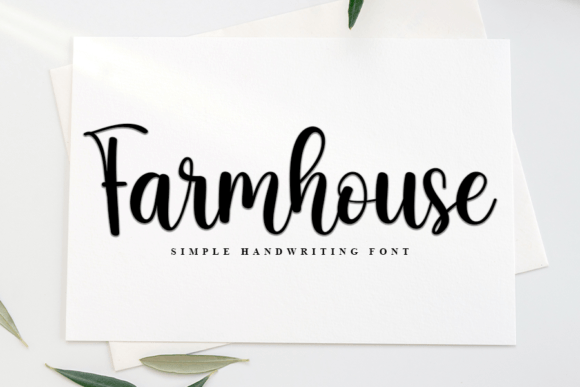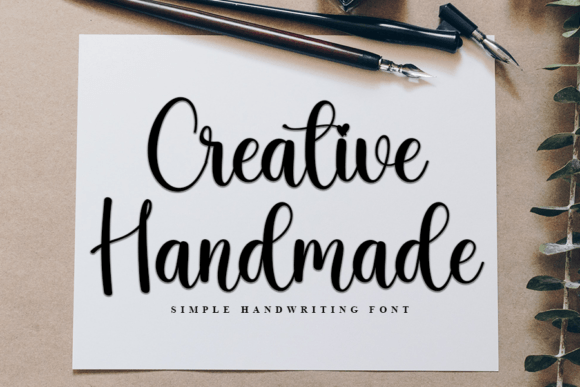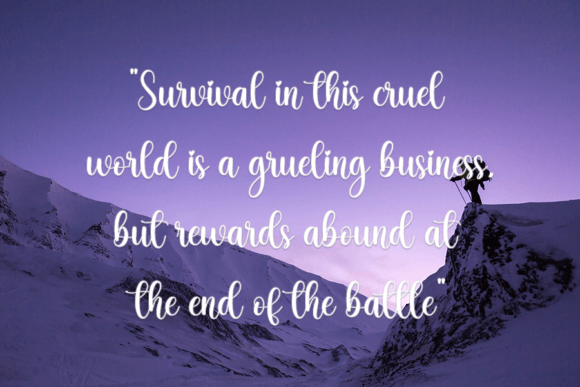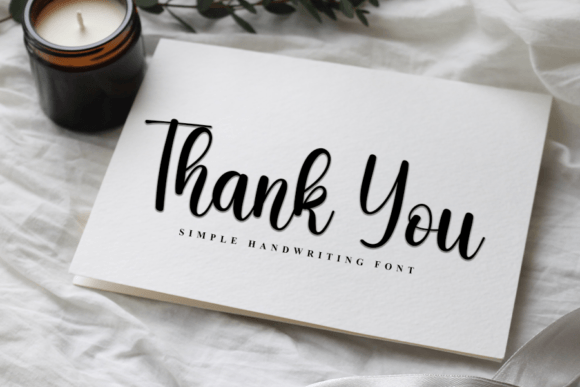
Hello Farmhouse Font: Elevate Your Designs with a Delicate Handwritten Touch
In the world of digital design, fonts play a crucial role in conveying the tone and aesthetic of a brand or project. For those seeking a unique and cool design element, the Hello Farmhouse Font is an excellent choice. This delicate handwritten font is carefully crafted to add a touch of personality to various design applications, from letters and invitations to food products and titles.
What is Hello Farmhouse Font?
Hello Farmhouse is a beautifully designed handwritten font that exudes a sense of elegance and simplicity. Its delicate strokes and unique letterforms make it an ideal choice for designers and crafters looking to add a personal touch to their work. The font’s rustic charm and whimsical feel evoke a sense of nostalgia, making it perfect for projects that require a vintage or farmhouse-inspired aesthetic.
Key Features of Hello Farmhouse Font
- Delicate Handwritten Style: Hello Farmhouse boasts a beautiful, handwritten design that adds a touch of warmth and personality to any project.
- Unique Letterforms: The font features unique and distinctive letterforms that set it apart from more traditional fonts.
- Versatile: Hello Farmhouse can be used for a wide range of design applications, from letters and invitations to food products, titles, and more.
- Easily Readable: Despite its delicate nature, the font remains easily readable, making it suitable for both digital and print designs.
Use Cases for Hello Farmhouse Font
The versatility of Hello Farmhouse Font makes it an excellent choice for various design projects. Here are some use cases where this font truly shines:
- Invitations and Stationery: Add a touch of elegance and whimsy to wedding invitations, birthday cards, and other stationery designs.
- Food and Beverage Branding: Use Hello Farmhouse to create unique labels, packaging, and branding for food products, bakeries, and cafes.
- Blog and Social Media Graphics: Elevate your blog posts and social media graphics with a personal touch, using Hello Farmhouse to create eye-catching titles and quotes.
- Crafting and DIY Projects: Perfect for crafters, Hello Farmhouse can be used to create handmade cards, gift tags, and other DIY projects.
Tips for Using Hello Farmhouse Font
To get the most out of Hello Farmhouse Font, consider the following tips:
- Pair with Complementary Fonts: Combine Hello Farmhouse with clean, sans-serif fonts to create a beautiful contrast and add visual interest.
- Experiment with Colors: Play with different color schemes to find the perfect match for your design, from soft pastels to rich jewel tones.
- Use for Headlines and Titles: Hello Farmhouse is perfect for headlines and titles, adding a touch of personality and whimsy to your design.
Hello Farmhouse Font is a beautiful, delicate handwritten font that can elevate your designs with its unique and cool aesthetic. With its versatility, readability, and charming letterforms, this font is perfect for designers and crafters looking to add a personal touch to their work. Whether you’re creating invitations, branding food products, or crafting DIY projects, Hello Farmhouse Font is an excellent choice.